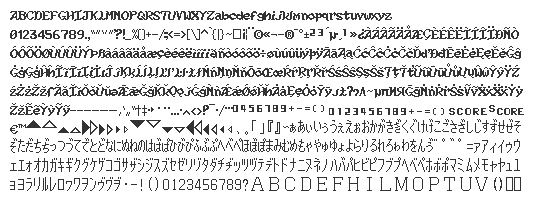
Kouryuu is a playful sans-serif pixel font recreation based on the original main text font appearing in the SNES video game Kouryuu no Mimi, developed and released by VAP in 1995, and the font used for the inofficial English fan translation of the game. This font includes a vast selection of additional diacritic variants, the full Japanese hiragana and katakana alphabet sets from the original Japanese version of the game, and many more characters, each one of them designed to match the spirit and style of the original font design. To recreate the original in-game appearance of this font, I recommend using font sizes that are multiples of 11pt and avoid any anti-aliasing or other font smoothing methods. Features: • 649 characters total • Proportional/monospaced display typeface • Countless additional special characters, diacritic variants, etc. • Full original Japanese hiragana and katakana character sets • Different variants of regular and tiny numbers Please contact me for any commercial use of my fonts. Copyright © 2015 Caveras. All rights reserved. |